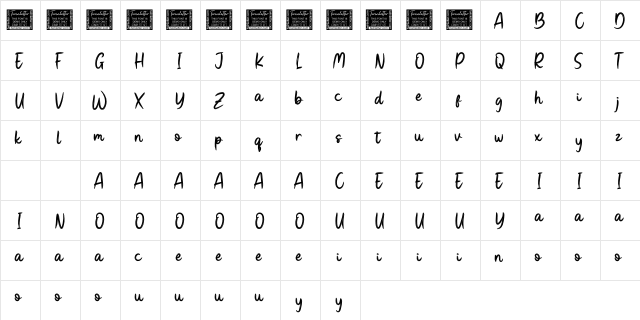
Design Context for History Typeface
History is a composed and adaptable typeface that performs quietly and consistently across a wide range of design contexts.
Pro Tip: Pair History with a font of contrasting weight or personality to build a more expressive typographic hierarchy.